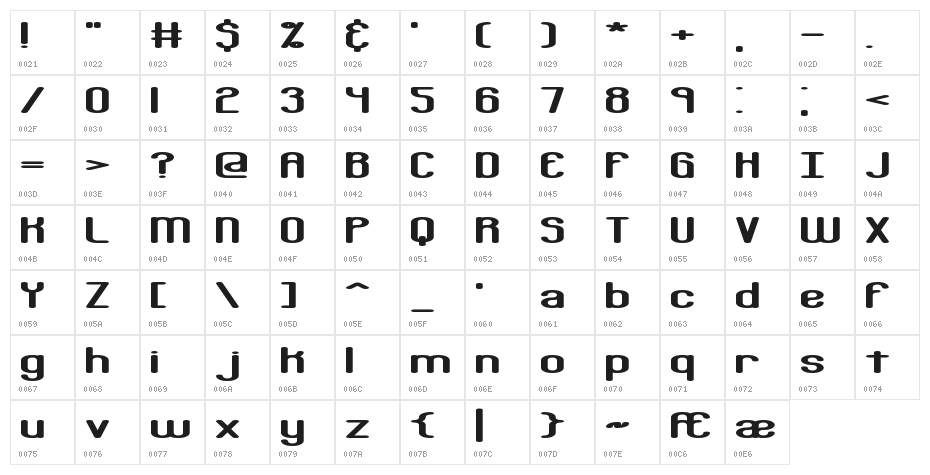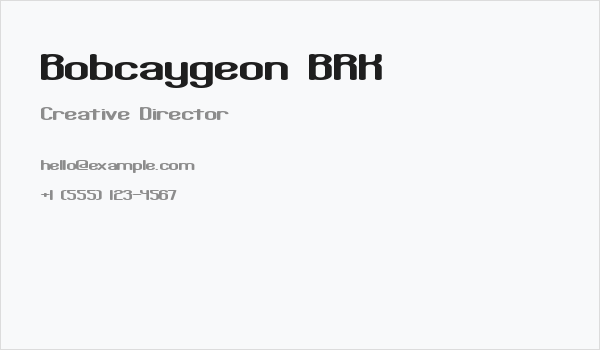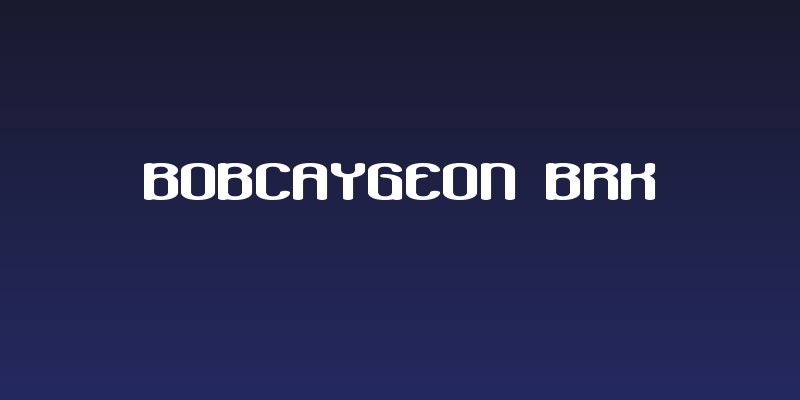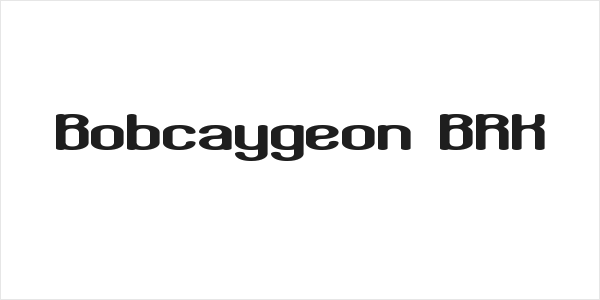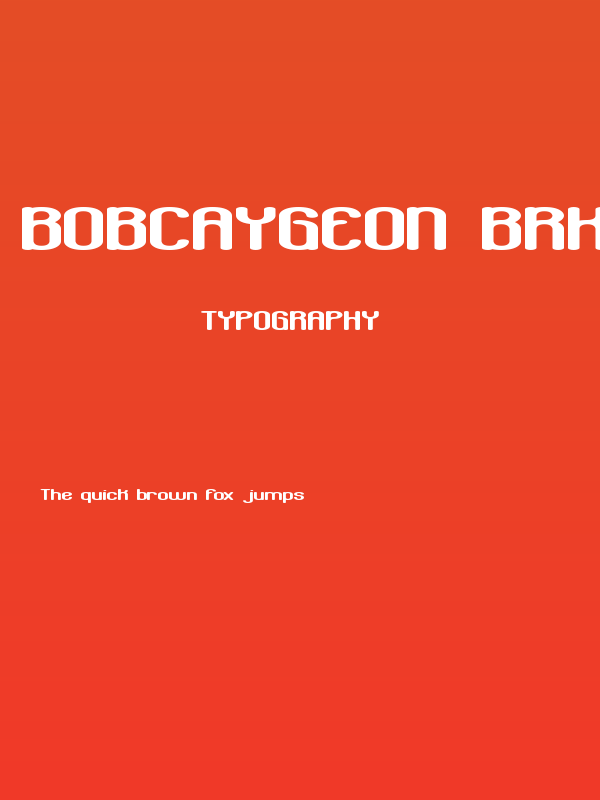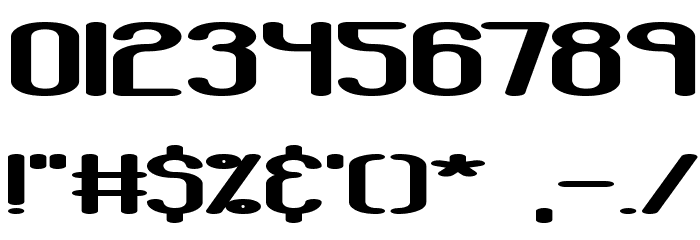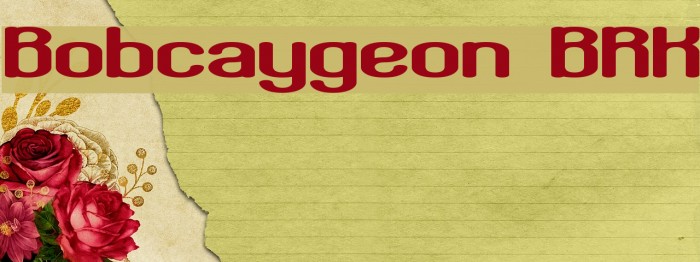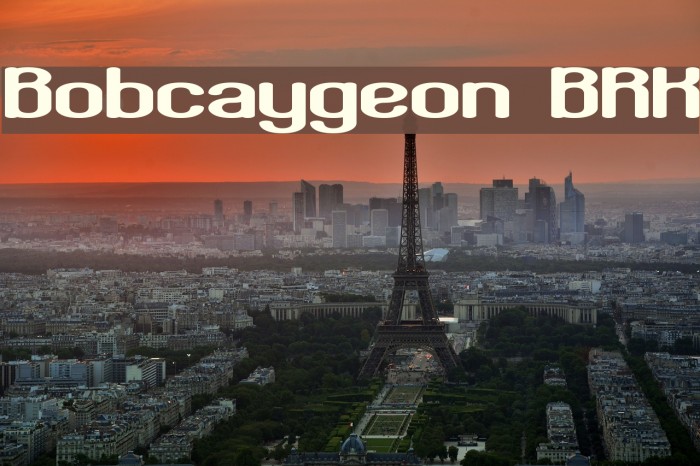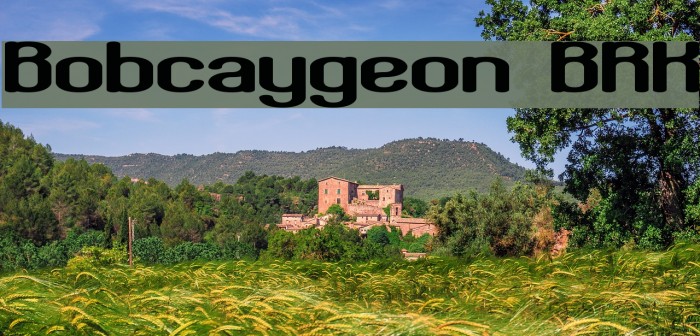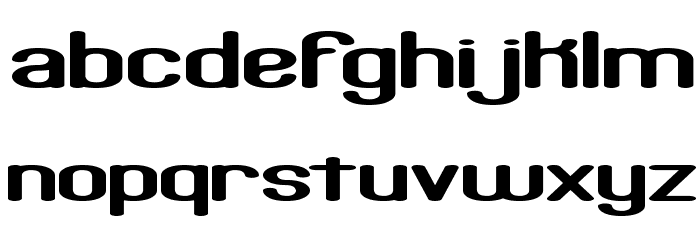
Bobcaygeon BRK Font
Bobcaygeon BRK Description
This font features a bold and rounded style with a modern and playful appearance. The characters are uniformly thick, giving it a strong presence. The rounded edges and smooth curves provide a friendly and approachable feel, making it suitable for a variety of creative projects. The uppercase and lowercase letters maintain a consistent design, ensuring readability and visual harmony. The numerals and special characters follow the same design principles, offering a cohesive look across all elements. This font is versatile and can be used in both digital and print media.
| Proposed Projects | Ideal for branding, packaging, children's books, and playful advertising campaigns. |